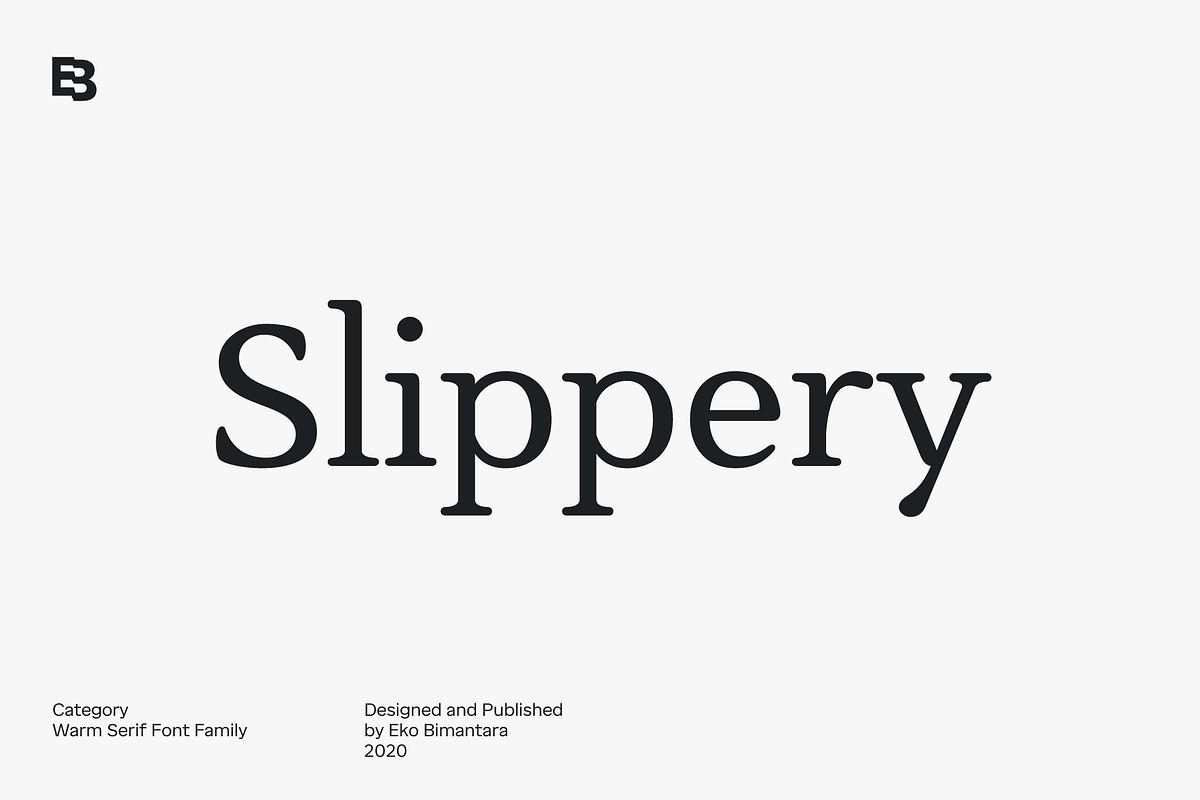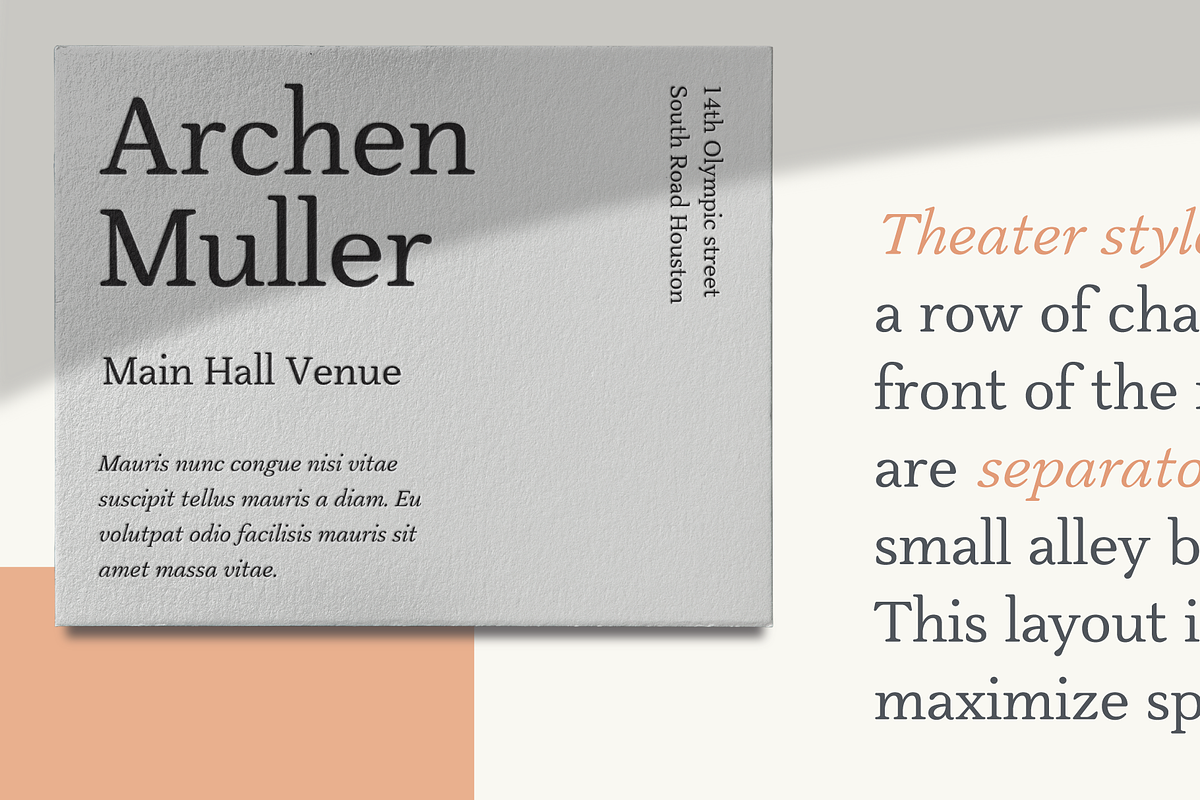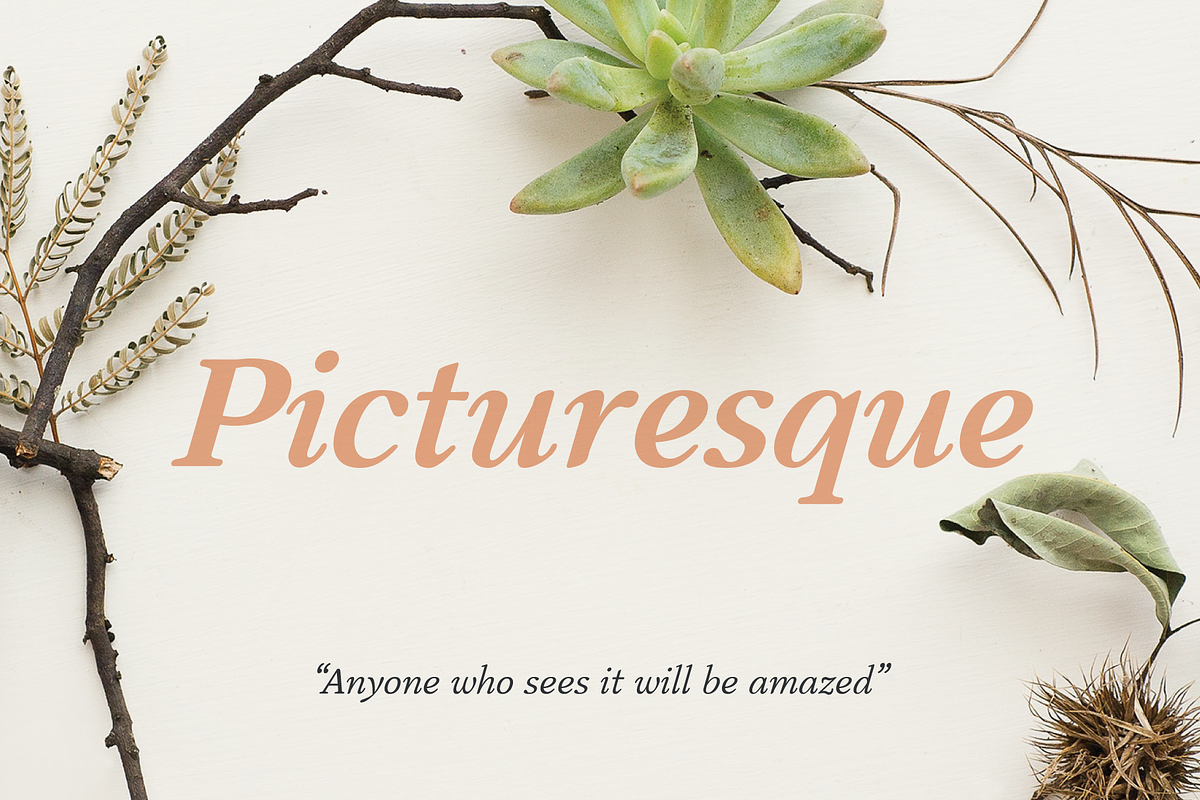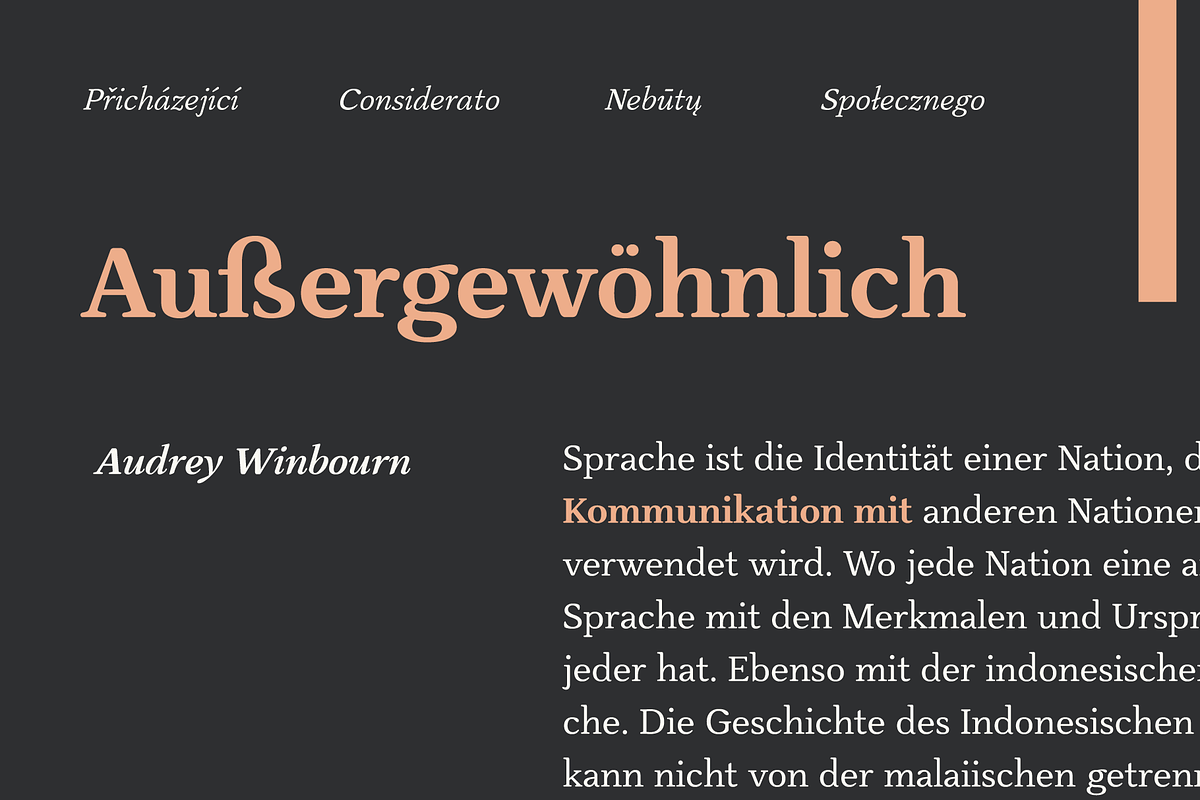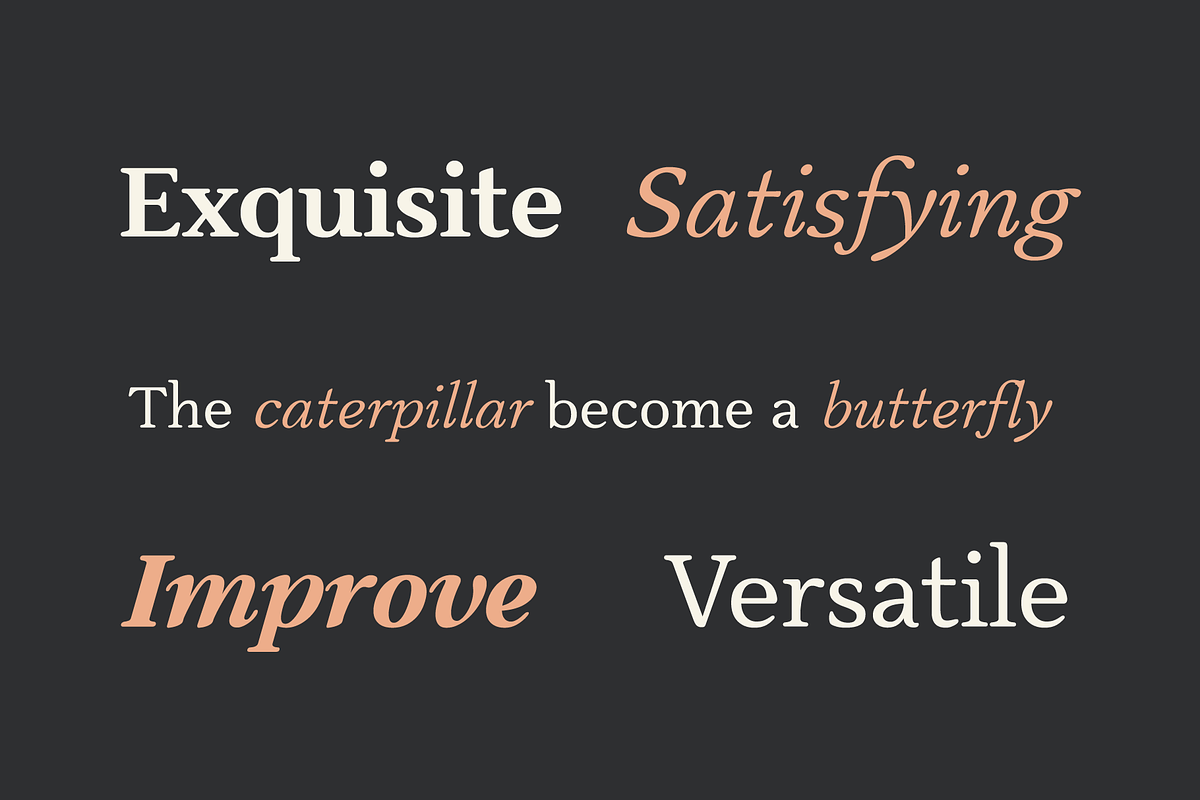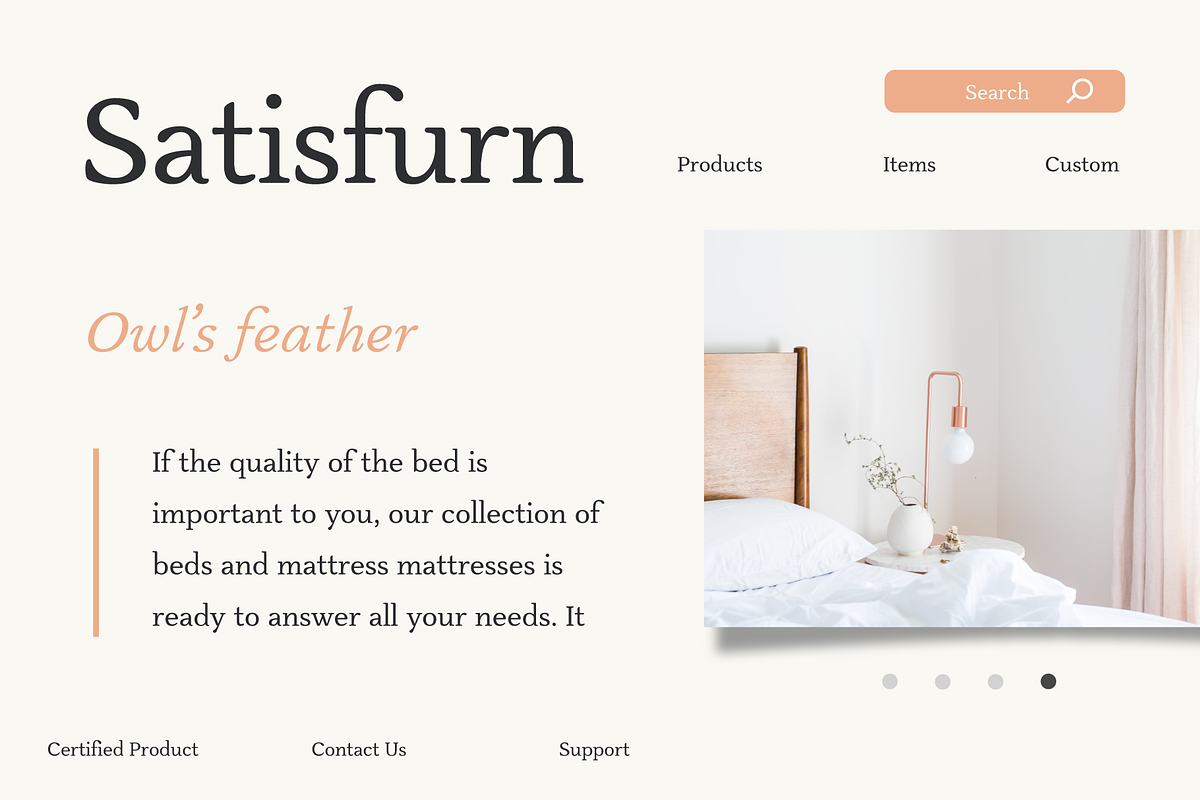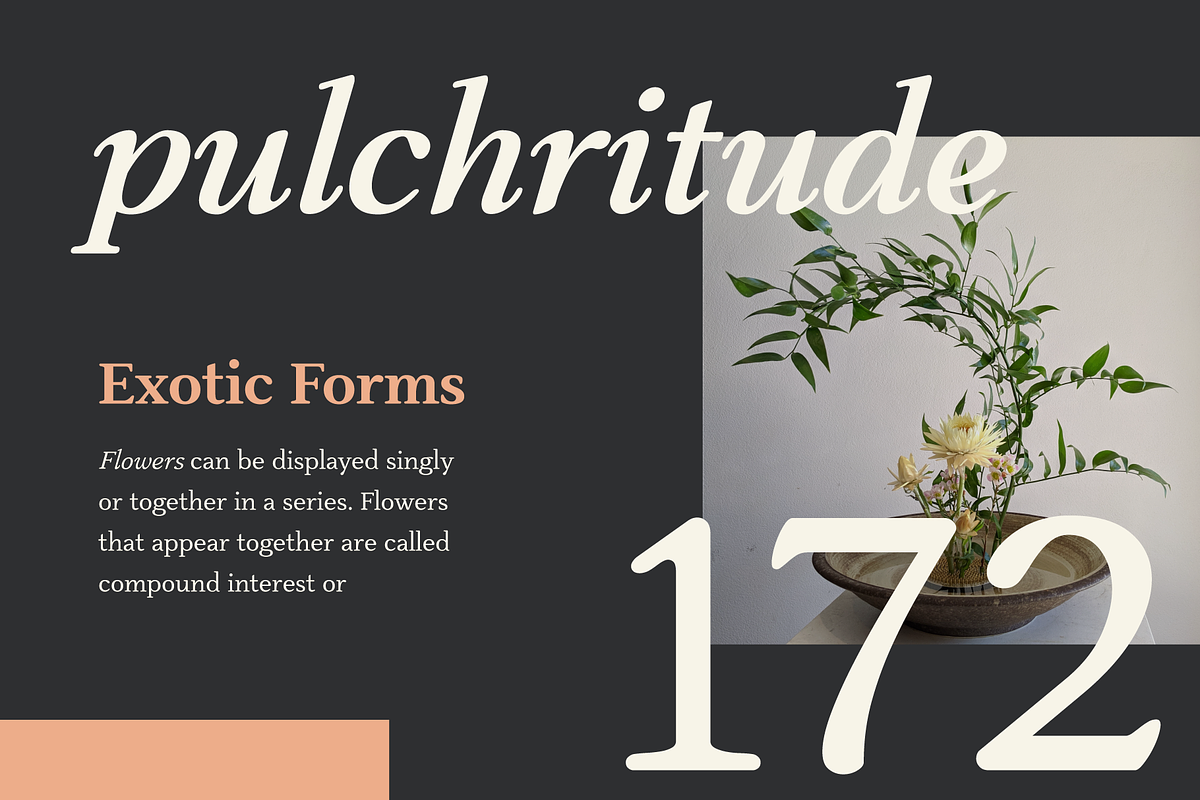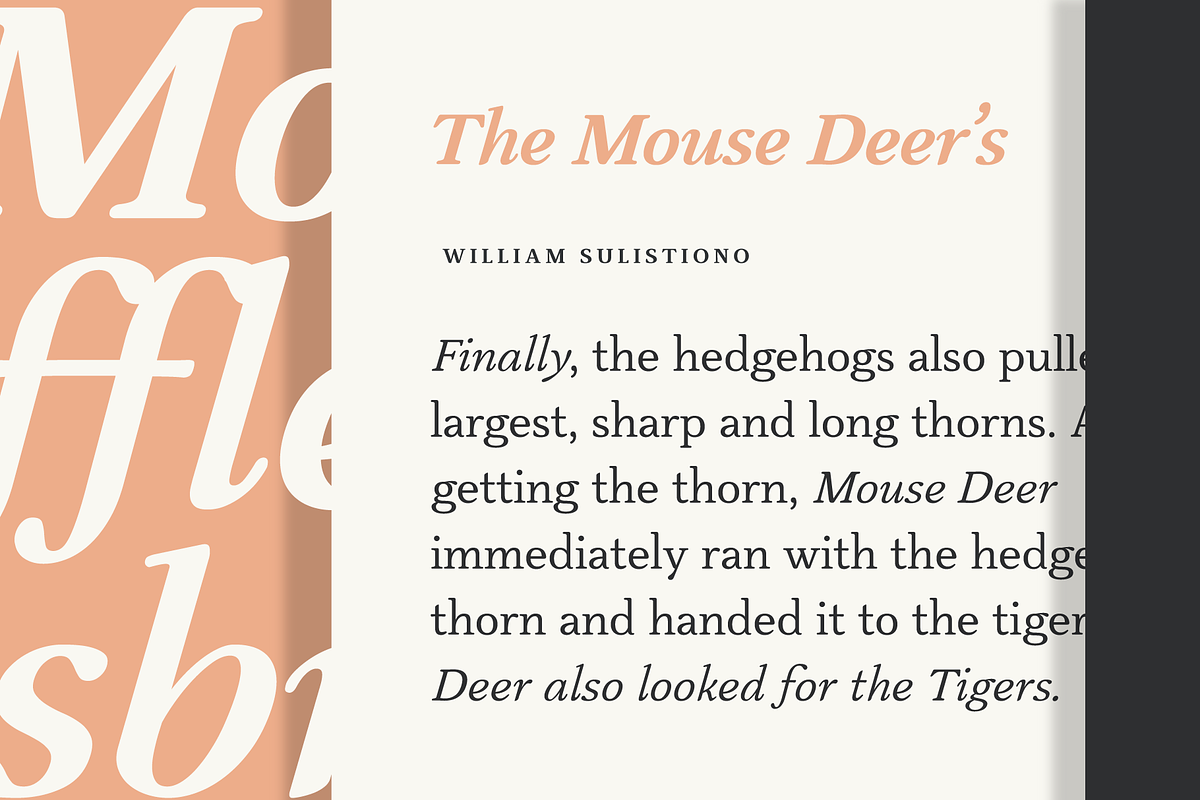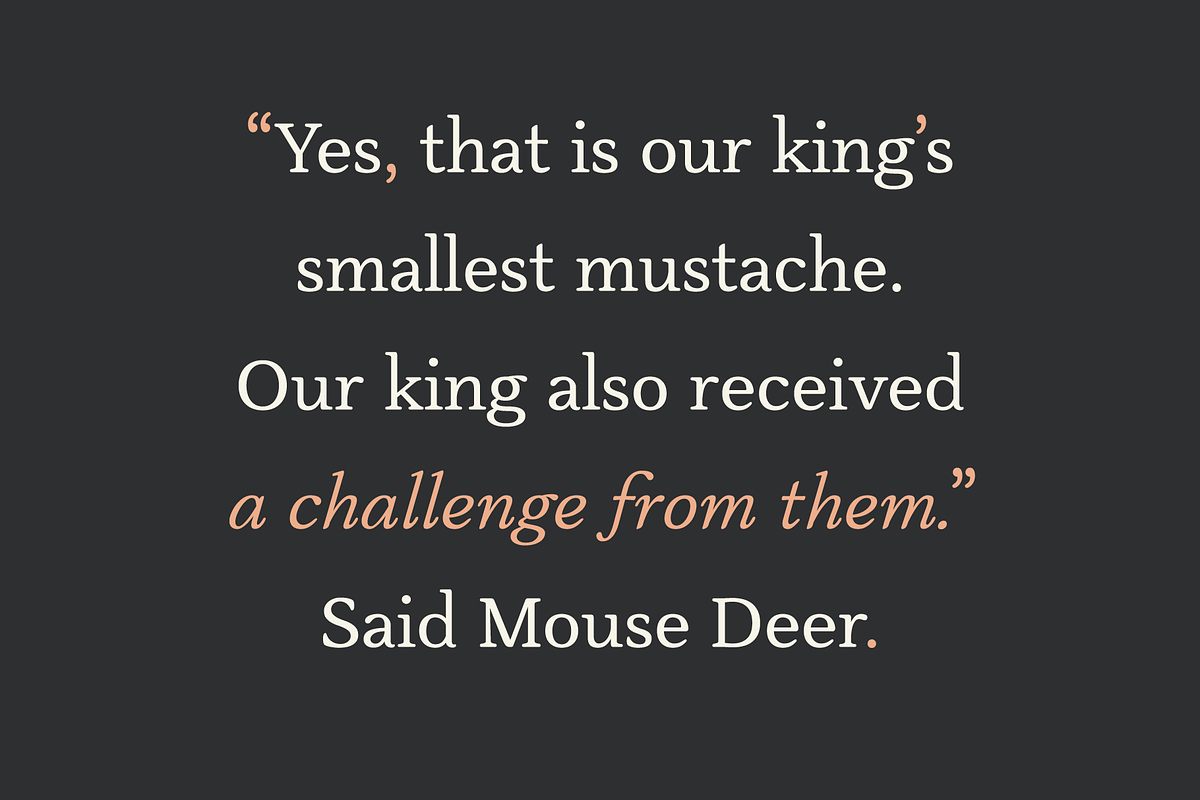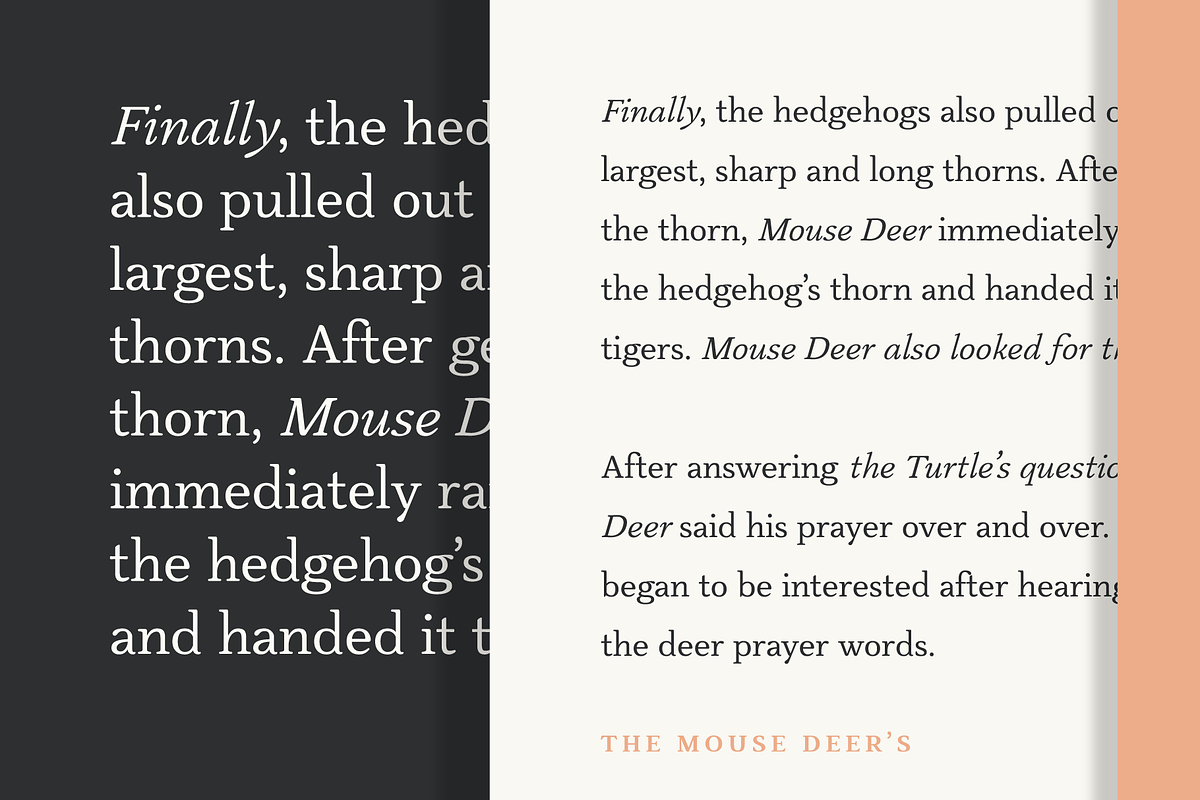
Slippery; Warm Serif
Slippery is a warm serif that's formed with the aim of readability. The letterforms is filled with soft edges, spacious counters, moderate x-height, and slippery italics.